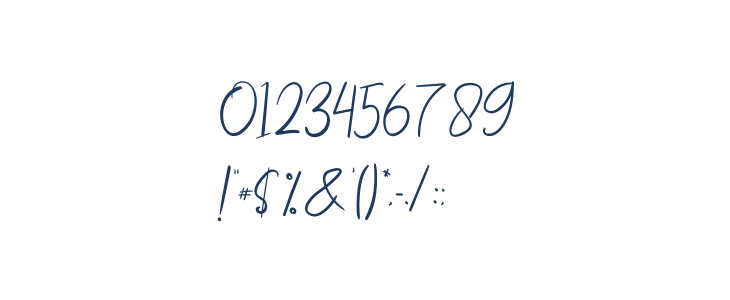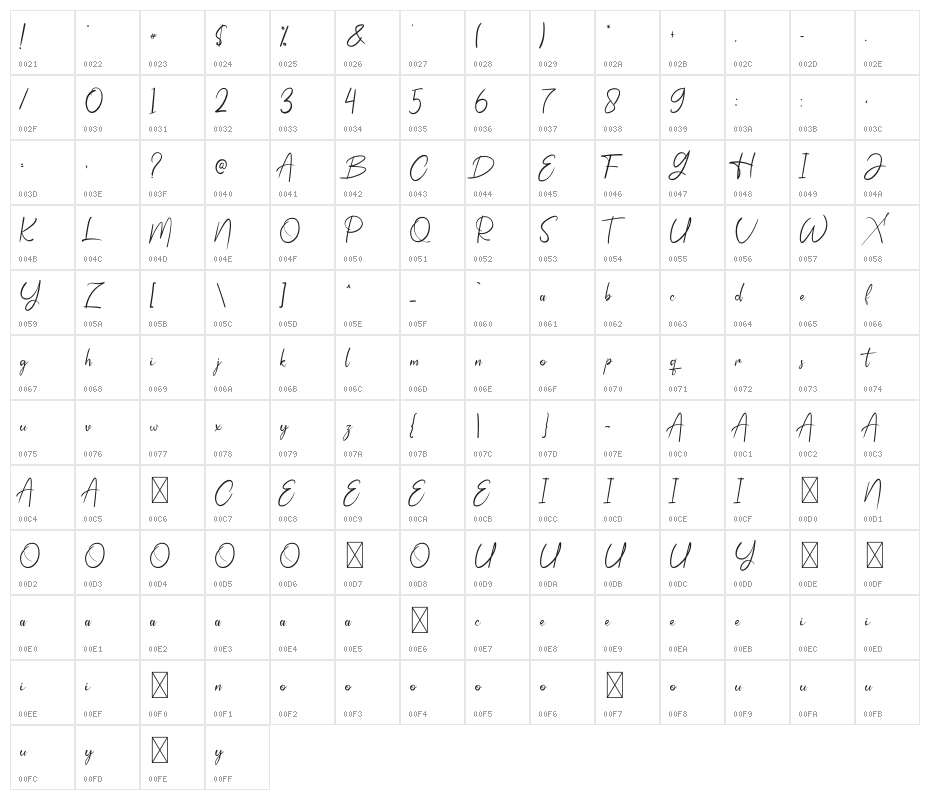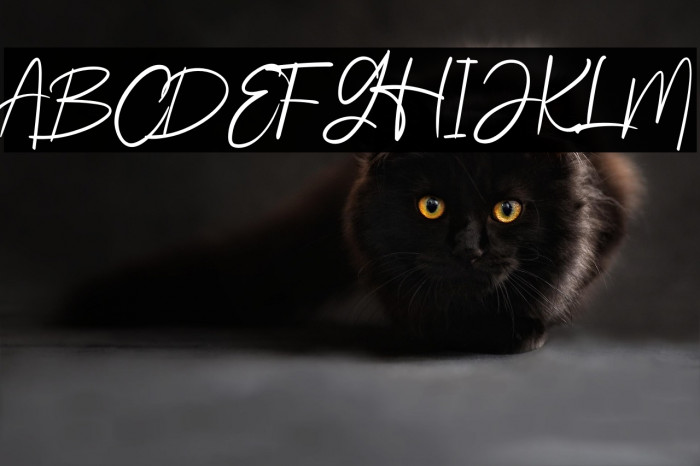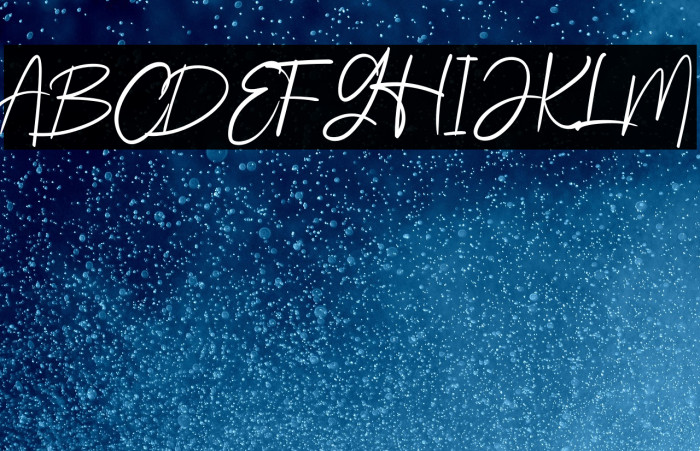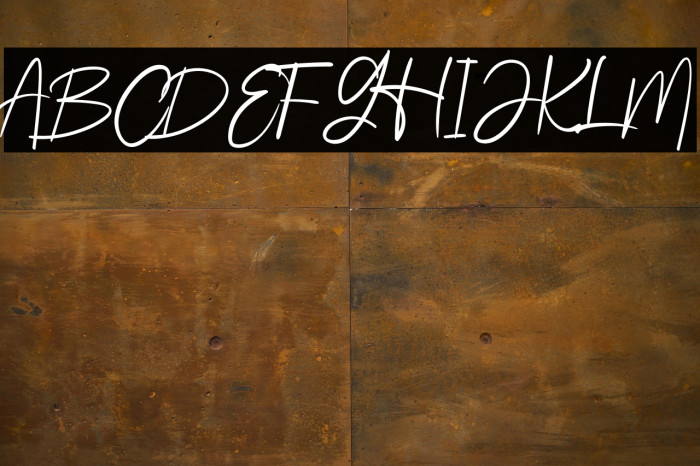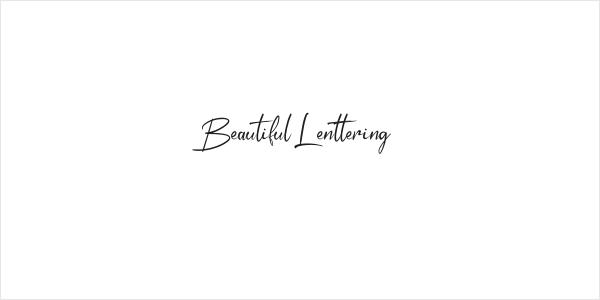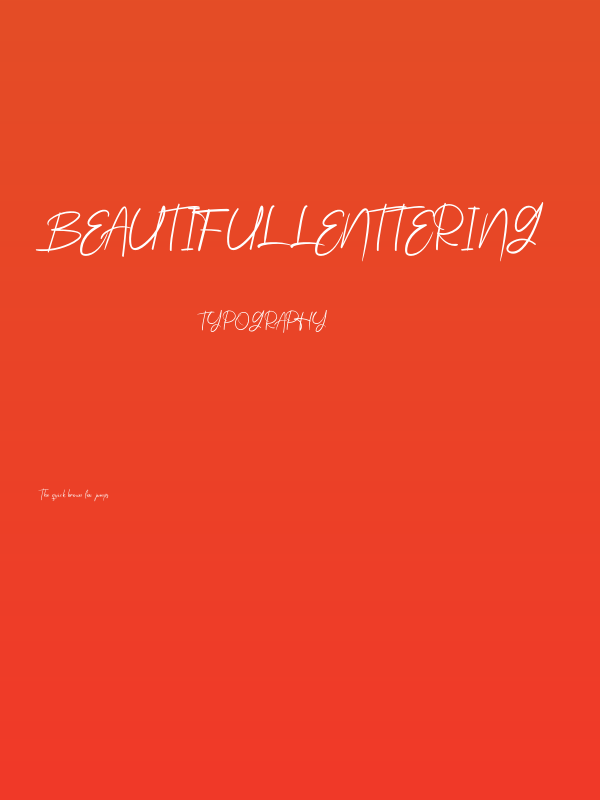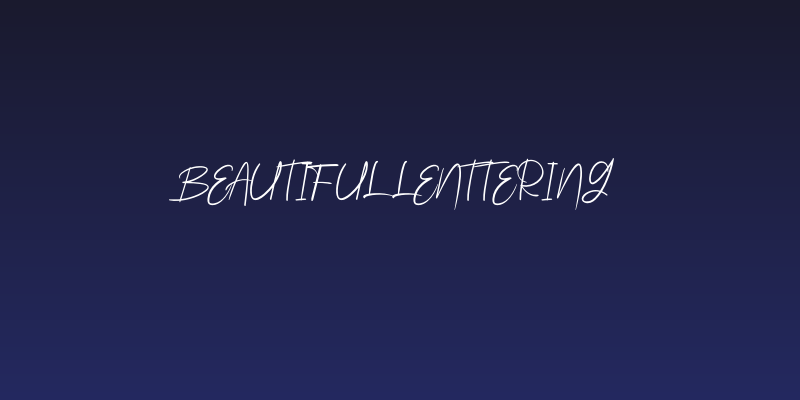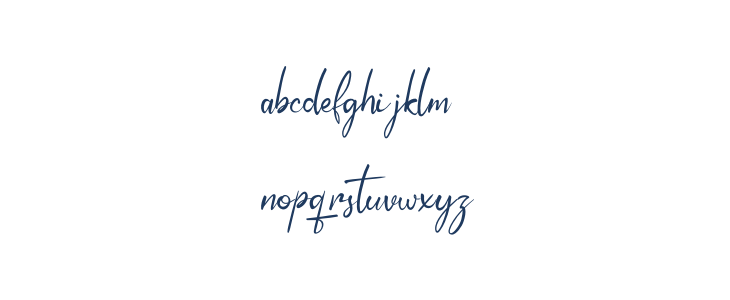
Beautiful Lenttering Font
Beautiful Lenttering Description
This font features an elegant and flowing script style, characterized by its smooth, cursive strokes and artistic flair. The uppercase letters are tall and slender, with a slight slant, giving them a sophisticated and graceful appearance. The lowercase letters maintain a consistent flow, enhancing the overall fluidity of the design. The numerals are bold and clear, ensuring readability while maintaining the font's artistic touch. Special characters are creatively integrated, adding to the font's versatility. This font is perfect for projects that require a touch of elegance and creativity.
| Overall Style | Elegant |
| Use Case | Logos, Invitations, Decorative text |
| Proposed Projects | Ideal for wedding invitations, greeting cards, branding, and logo design. |